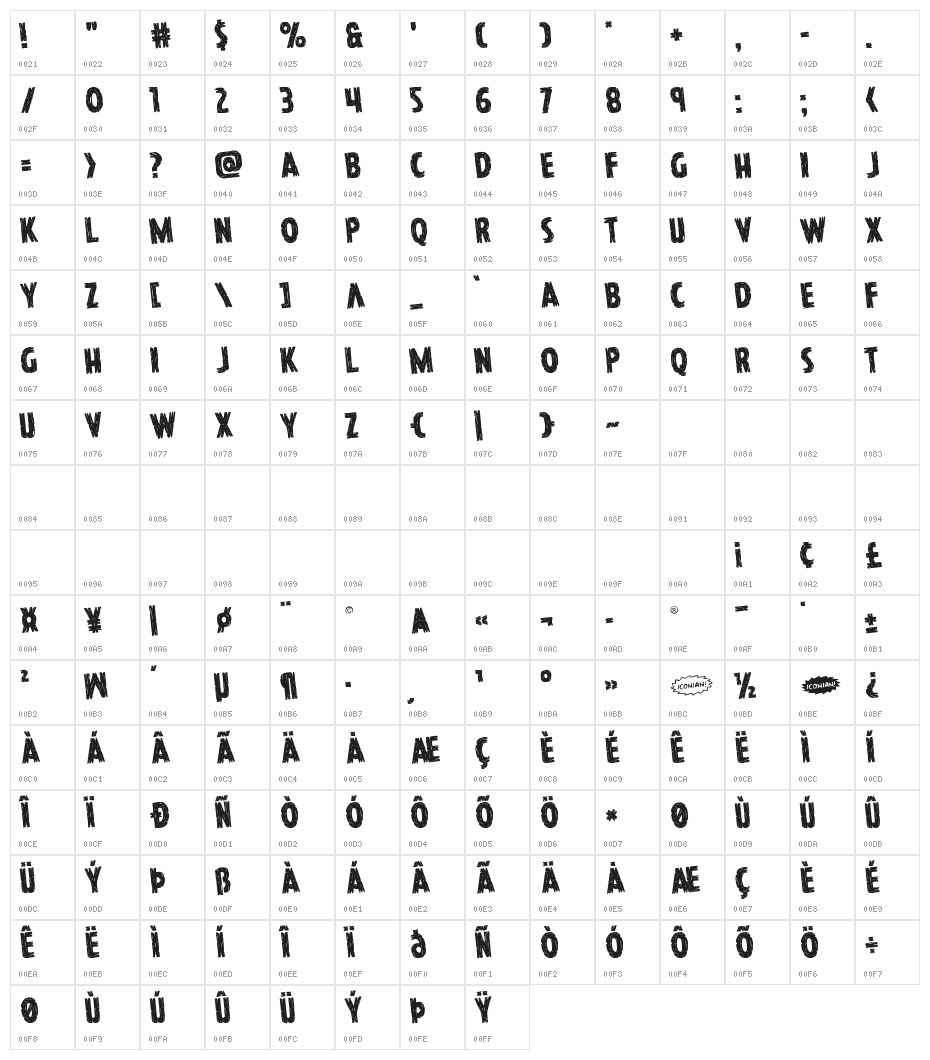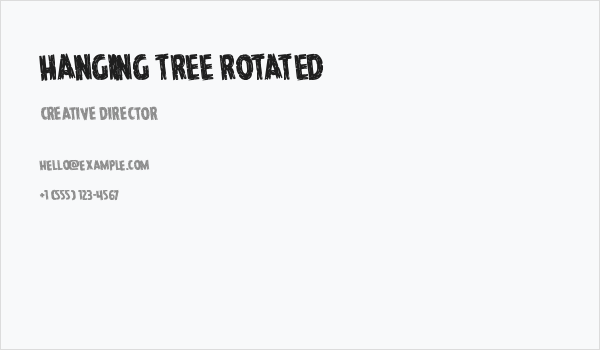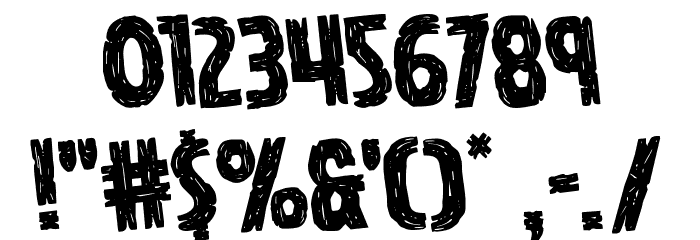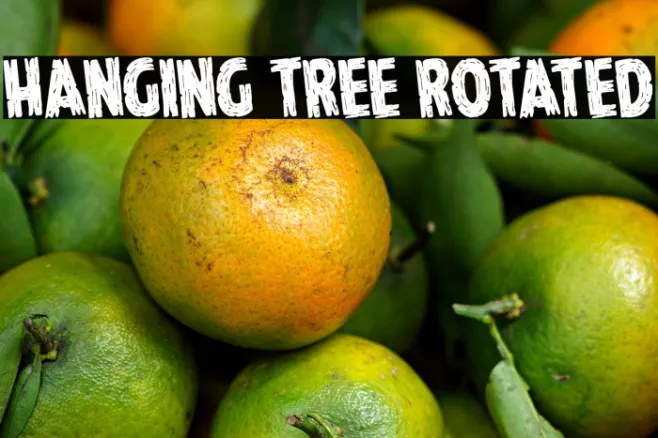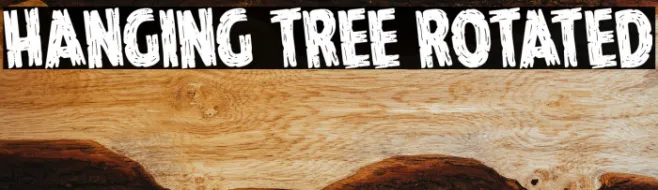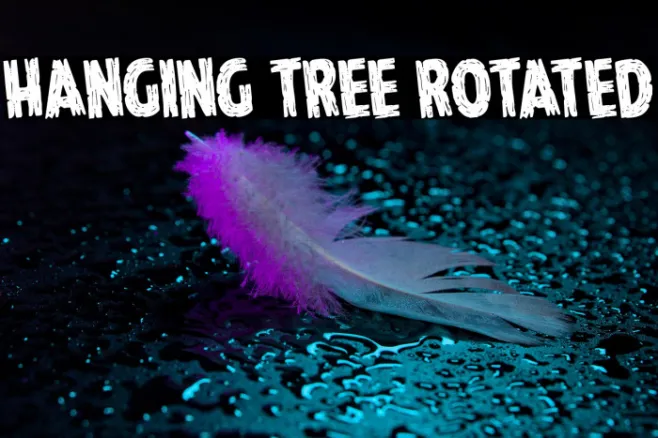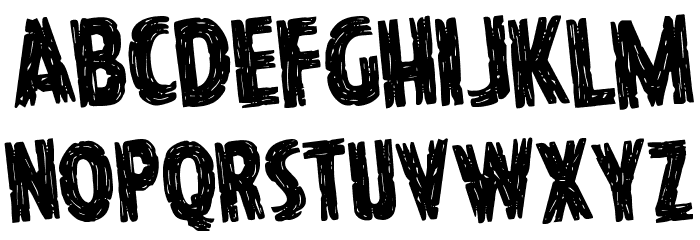
Hanging Tree Rotated Font
Hanging Tree Rotated Description
This font features a bold, hand-drawn style with a rough, textured appearance. The characters are irregular and have a sketch-like quality, giving them a dynamic and energetic feel. The strokes are thick and uneven, creating a sense of movement and spontaneity. This font is highly decorative and stands out with its unique, artistic flair. The uppercase and lowercase letters maintain a consistent style, while the numbers and special characters complement the overall design. The font's playful and informal nature makes it suitable for creative projects.
| Proposed Projects | Ideal for posters, album covers, event flyers, and creative branding projects. |